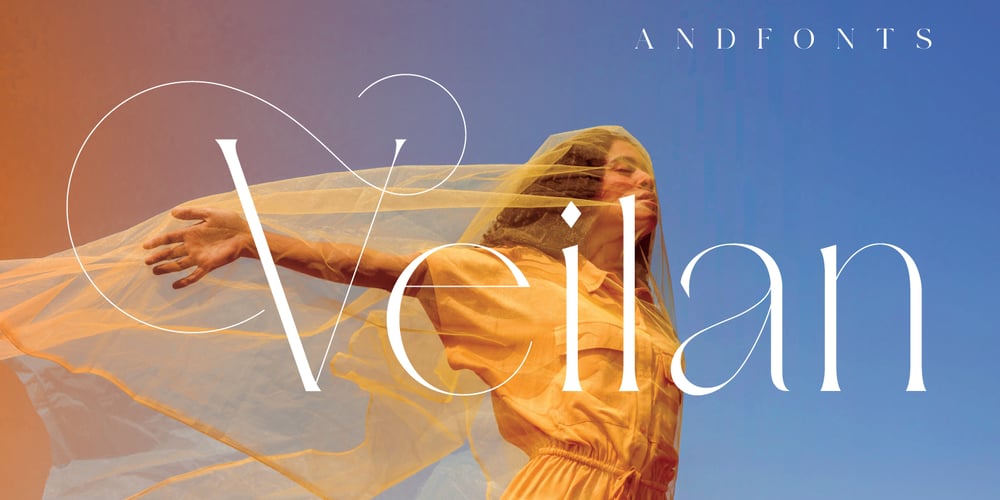
Veilan Font Family was designed by Andrii Shevchyk and published by Andfonts. Veilan contains 4 styles and family package options. Veilan is a playful yet elegant thin serif font in two styles with alternates. It looks stunning on wedding invitations, headlines, quotes, greeting cards, logos, every other design which needs a unique touch.